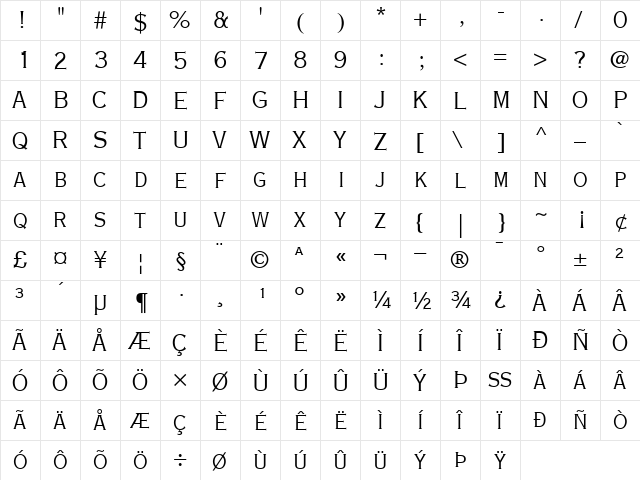
CopperplateGothicTwenty-NineAB Roman
Design Context for CopperplateGothicTwenty-NineAB Typeface
CopperplateGothicTwenty-NineAB takes a clean, functional approach — its unadorned letterforms prioritise legibility and work reliably across screen and print environments.
Font Pairing: Works well alongside a characterful serif or display font that can carry the expressive load while CopperplateGothicTwenty-NineAB handles the functional copy.
Pro Tip: Use CopperplateGothicTwenty-NineAB for UI labels, navigation, and short-form body copy where clean legibility is the priority.